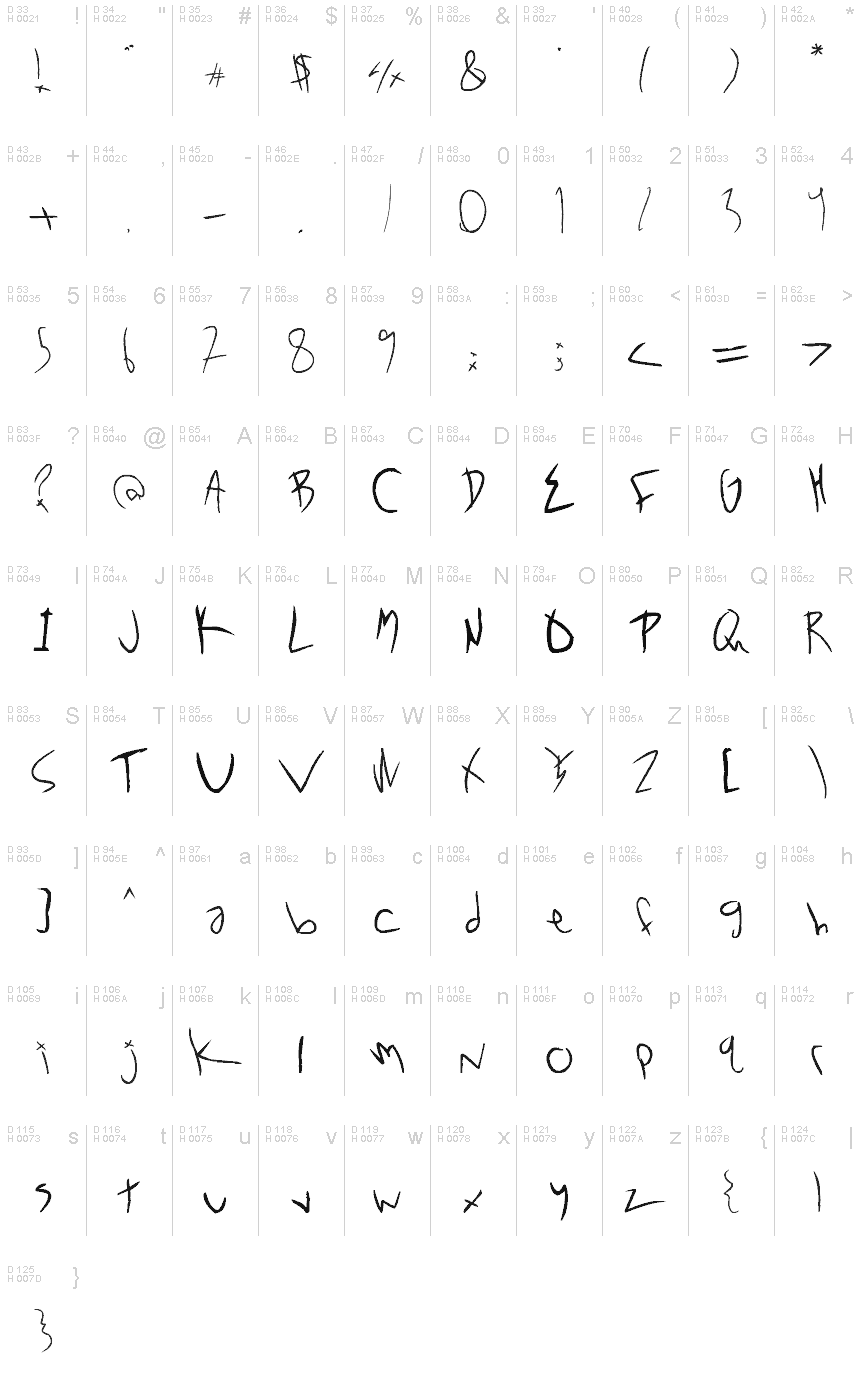
NOxWAY is a bold, handwritten font that exudes an edgy, rebellious charm. Its loose, expressive strokes and jagged terminals lend a sense of raw energy and spontaneity, making it an ideal choice for streetwear, graffiti-inspired designs, or any project seeking a raw, authentic aesthetic.
The light weight of the font further emphasizes its youthful, dynamic feel, allowing the playful, almost anarchic nature of the letterforms to shine. NOxWAY's versatility extends beyond its evident visual appeal, as its distinctiveness can make it an impactful choice for branding, packaging, or attention-grabbing headlines.